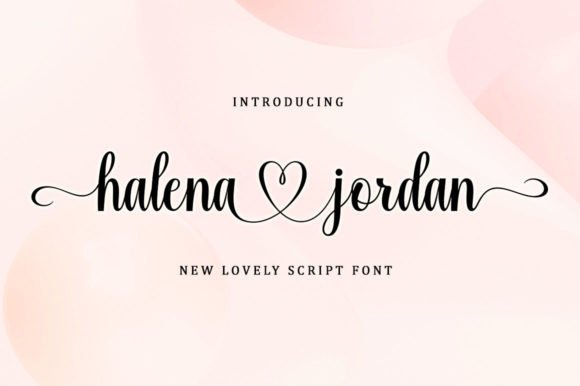
In a world brimming with digital expressions, let your words dance with an enchanting rhythm, a melody that captivates and engages like never before. Discover Halena Jordan, an exquisitely crafted handwritten font, ready to bring your creative visions to life.
Halena Jordan is more than just a font; it's an artistic masterpiece, a carefully curated collection of characters that flow with grace and elegance. Each letter is a work of art, meticulously designed to evoke a sense of timeless beauty and charm. From the delicate curves of the ascenders to the sweeping strokes of the descenders, Halena Jordan dances across the page with a sense of effortless sophistication.
With its PUA coding, Halena Jordan opens up a world of possibilities, effortlessly granting you access to a treasure trove of glyphs and alternative characters. Unleash your creativity and let your imagination soar as you explore endless combinations, crafting personalized designs that reflect your unique style.
Whether you're crafting heartfelt wedding invitations, designing elegant logos, or creating captivating social media graphics, Halena Jordan is your perfect companion. Its versatility knows no bounds, adapting seamlessly to a myriad of digital adventures. Let your words take center stage, adorned with Halena Jordan's timeless elegance.
This remarkable font is not just a tool; it's a gateway to a world of emotions, a means to express your deepest sentiments with a touch of sophistication. Let Halena Jordan be your muse, inspiring you to create breathtaking designs that resonate with your audience, leaving an enduring impression that whispers of elegance and grace.